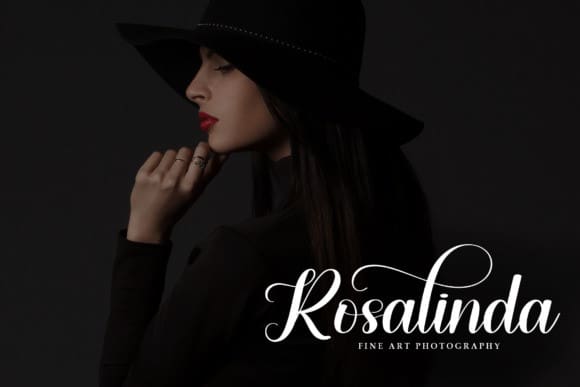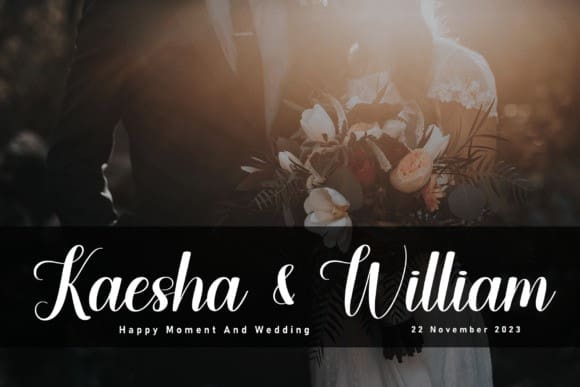
Angelwings Font
Angelwings Font is a sweet and friendly handwritten font. Its natural and unique style makes it incredibly fitting to a large pool of designs. The only limit is your imagination!